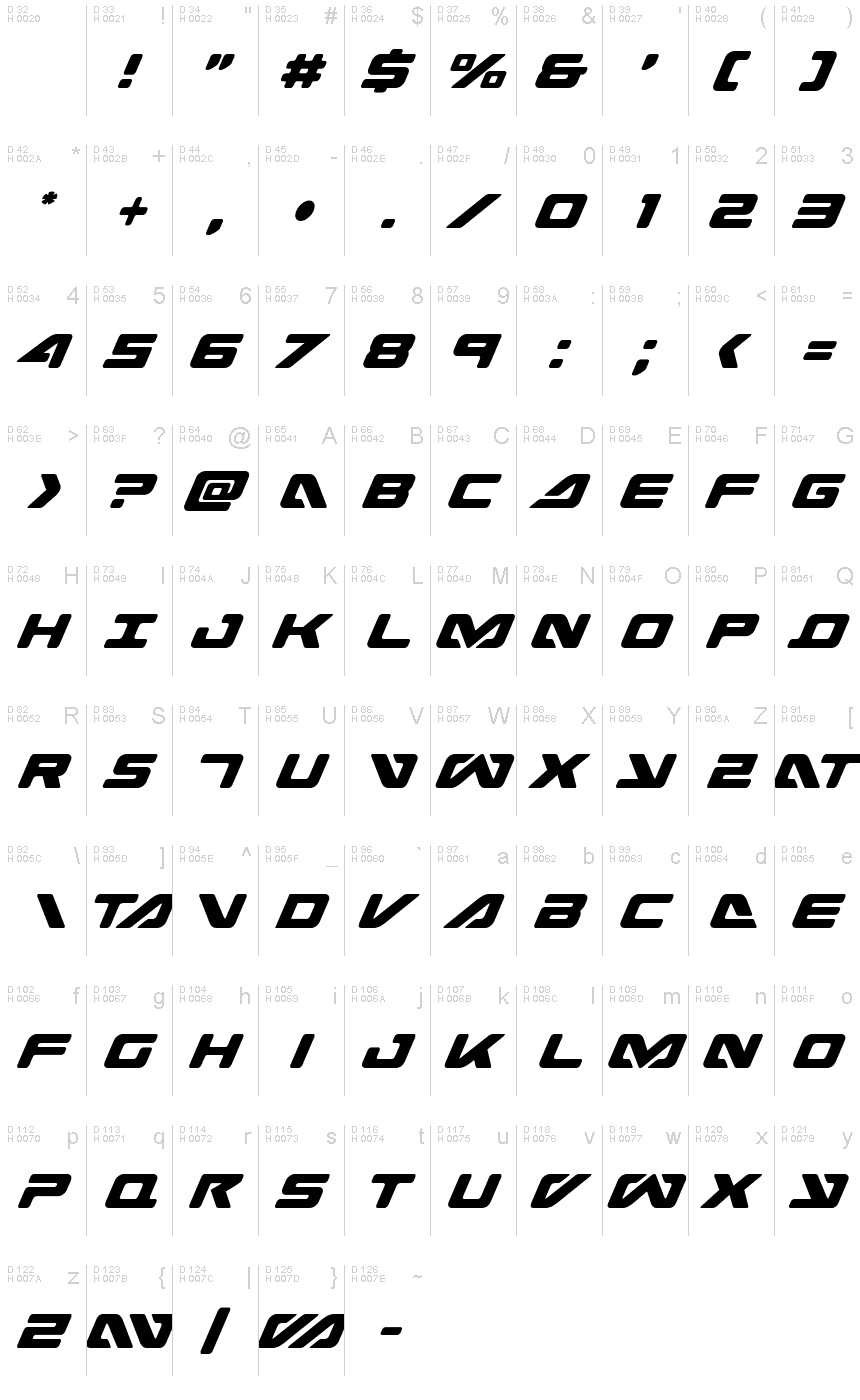
Sea-Dog Condensed Super-Italic
Sea-Dog Condensed Super-Italic is a futuristic display font designed by Iconian Fonts. With its bold weight and extra-expanded width, this font commands attention and makes a statement. The sharp angles and exaggerated curves of the super-italic style give it a sleek and modern look that's perfect for projects in the tech, gaming, or fashion industries. Use it for branding materials, advertisements, packaging design, or even in video game titles. Sea-Dog Condensed Super-Italic is sure to stand out and leave a lasting impression on your audience.